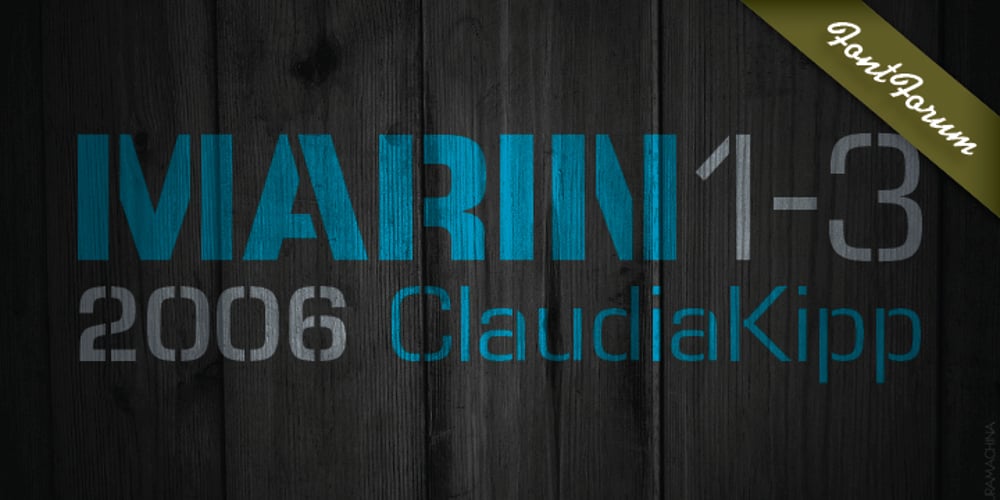
Marin
Marin font
Marin Font Family was designed by Claudia Kipp and published by URW Type Foundry. Marin contains 3 styles and family package options. Marin, a name that is associated with water and ships, looks very confident and follows the ideas of Eurostile, but in a stencil design. Marin was designed for the URW++ FontForum.